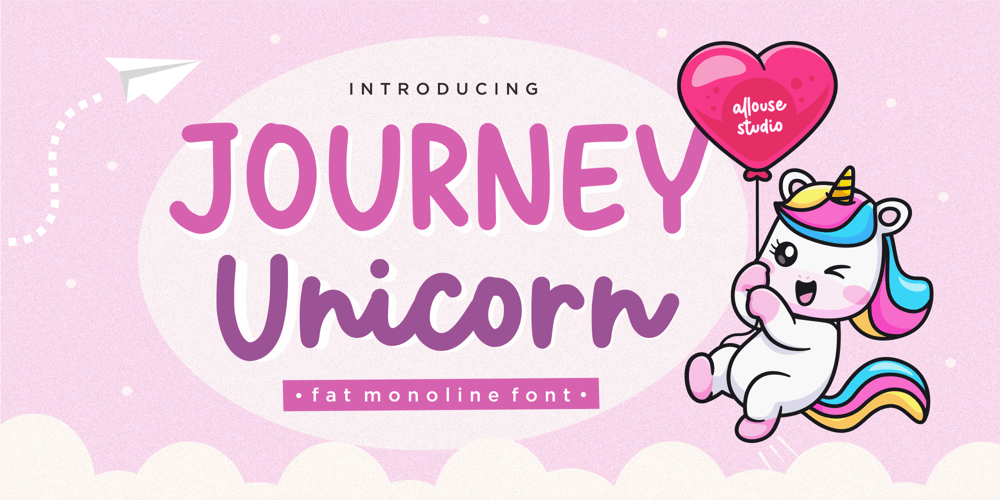
Journey Unicorn Font Family was designed by Fachrizal Yusuf and published by Allouse Studio. Journey Unicorn contains 1 styles and family package options. Proudly Present, Journey Unicorn A Fat Monoline FontJourney Unicorn is perfect for any titles, logo, product packaging, branding project, megazine, social media, wedding, or just used to express words above the background.Journey Unicorn also come with Multi-Lingual Support.Enjoy the font, feel free to comment or feedback, send me PM or email. Thank You!